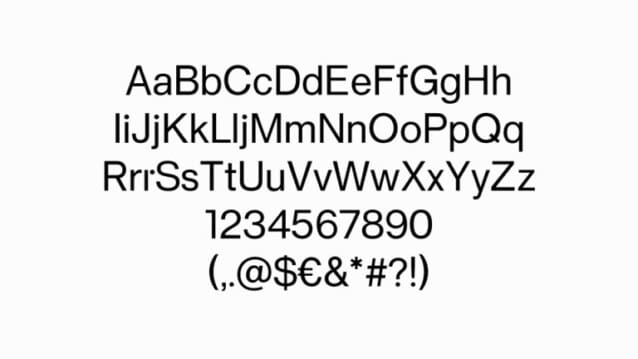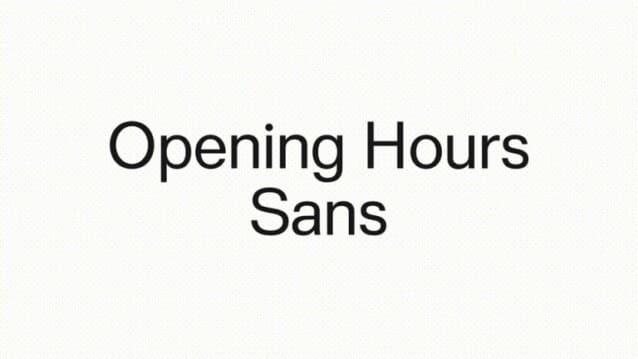
Opening Hours Sans Font
Opening Hours Sans Font is a free modern sans-serif font designed for Opening Hours Studio. The font captures the essence of modern design with its clean lines, balanced proportions, and effortless legibility.
Opening Hours Sans features a neutral and understated design, making it a versatile choice for a wide range of projects. Whether you’re working on editorial layouts, corporate branding, or minimalist websites, this font ensures that your message is delivered with clarity and precision.